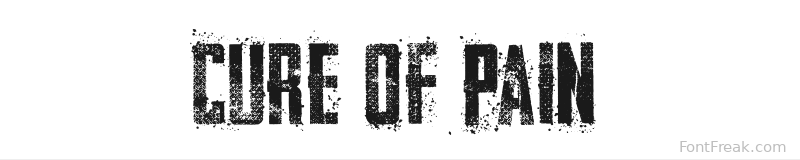
CURE OF PAIN
About CURE OF PAIN
CURE OF PAIN by Billy Argel Fonts is a striking display typeface that captures attention with its rugged aesthetic. This font falls into the decorative category, characterized by its bold, distressed appearance that evokes a sense of urgency and raw emotion. The strokes are thick and uneven, creating a strong visual impact that is both energetic and artistic. The contrast between the heavy strokes and the textured finish gives the font a gritty, urban feel, making it suitable for a variety of creative applications.
This font excels in use cases where a dramatic flair is required. It is an excellent choice for movie posters, particularly in genres like horror or action, where it can convey intensity. CURE OF PAIN is also well-suited for album covers, especially in the rock or punk music scenes, where its rebellious spirit can resonate with the audience. Additionally, it can add a unique touch to restaurant menus, particularly those with a modern or industrial theme, and is perfect for promotional materials aimed at younger demographics, such as flyers or social media graphics.
The target audience for this font includes graphic designers looking to make bold statements in their work, small business owners seeking to differentiate their brand, and content creators who want to add an eye-catching element to their projects.
What makes the CURE OF PAIN font stand out is its ability to evoke strong emotions while maintaining readability. Its unique aesthetic not only captures attention but also communicates a sense of attitude and character that few fonts can achieve. For those interested in elevating their design projects, the CURE OF PAIN font free download offers an opportunity to infuse creativity and energy into their work.